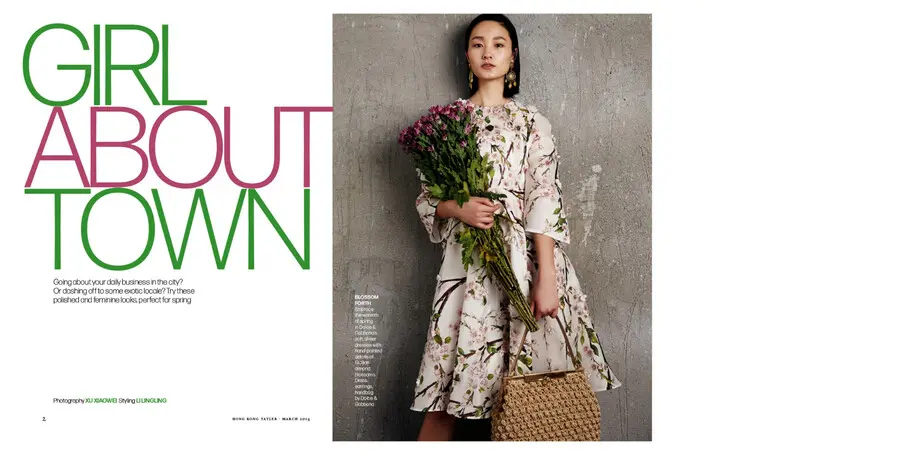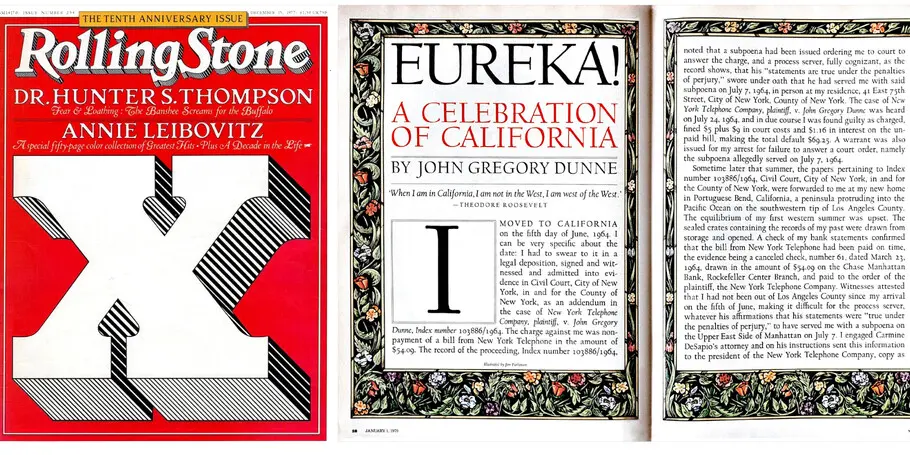
Creative Characters S3 E19: Roger Black and Charles Nix trace the history of type.
Roger Black.
Roger Black draws from origins and evolution of type, type trend drivers, and his own career, in this week’s episode with our own Charles Nix. Combining various lenses that allow creatives to see between and behind the lines of type, the two designers inspect the nitty gritty of typographic design, from machinery to wider influences of cultural shifts, and how to look backwards in order to see forward and achieve timeless and iconic type design.
Roger Black is a renowned American designer known for his extensive and influential portfolio, from editorial designs for Rolling Stone, New York Times Magazine, and Newsweek to his digital work for Barnes & Noble, the Senate, and more.